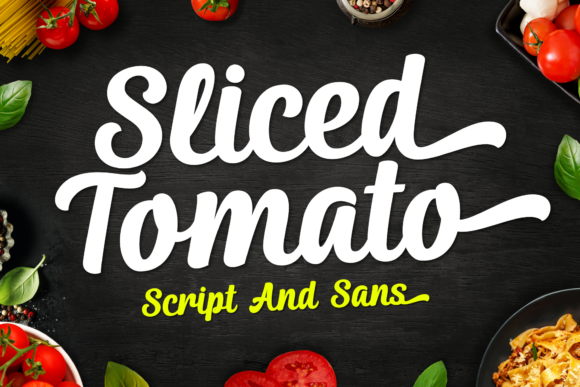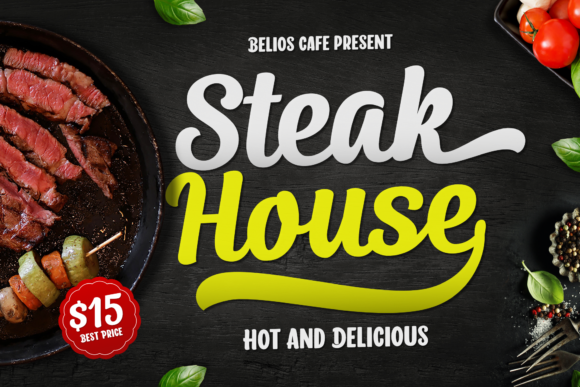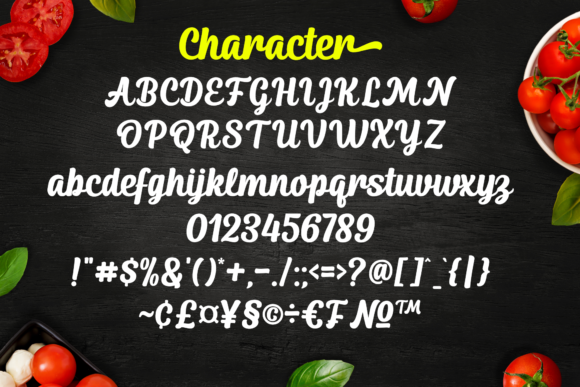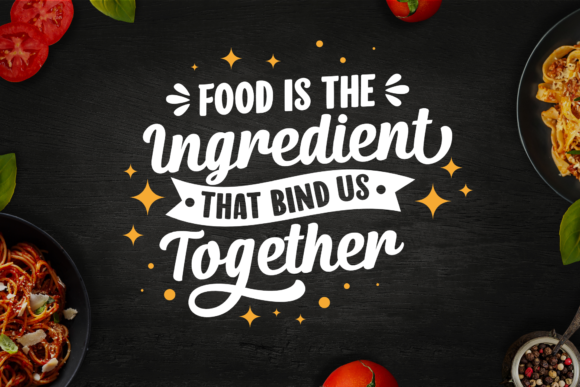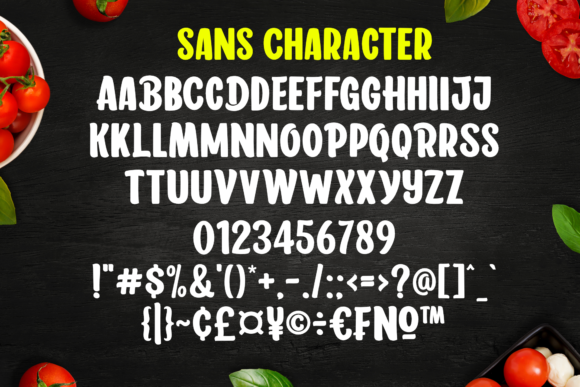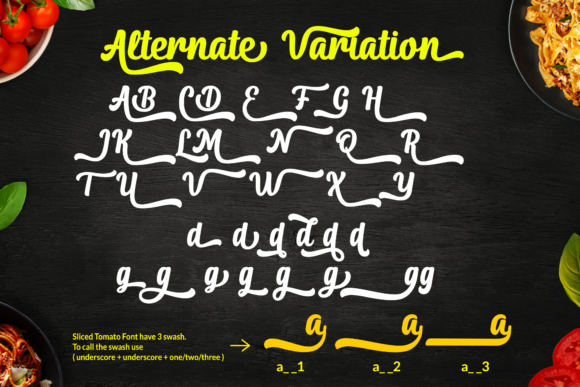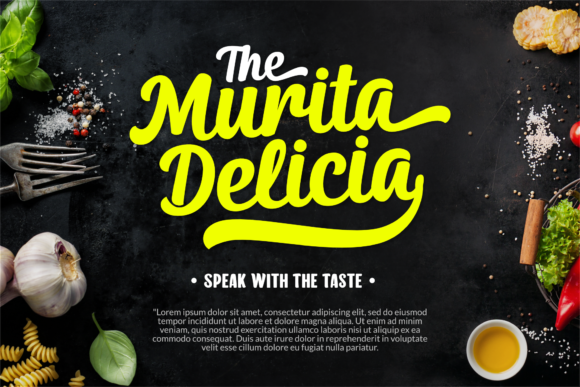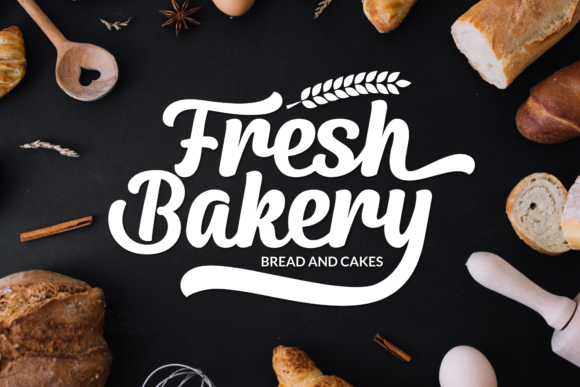
Sliced Tomato Font
About Sliced Tomato Font
Sliced Tomato is a bold duo script font, featuring a cool flow. This font is PUA encoded which means you can access all of the glyphs and swashes with ease!